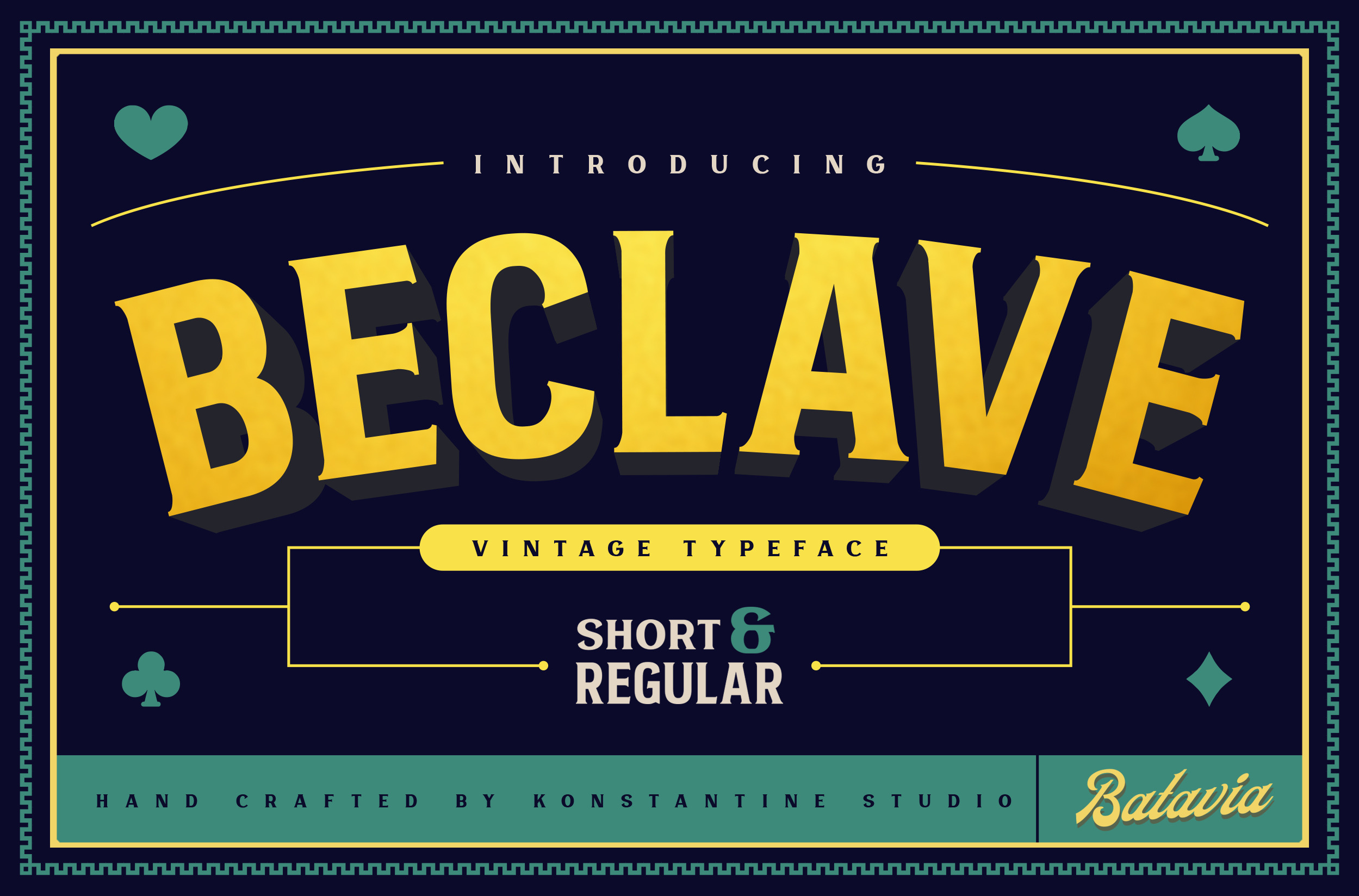
Beclave - Vintage Typeface
Introducing Beclave. A pair of serif bold typeface inspired by the golden era of vintage sign and lettering back in the old days. To give you instant bold and strong statement to your brand, carefully crafted each letters by the passionate hand. tailored at its best for you who really into the vintage culture and stuff, this duo fonts are the perfect choice to go.
I do monumental drafting always on the lookout for fonts that can be carved or sandblast in stone at various sizes, this font meets my needs, plus resemble old-style used on monuments for 100+ years. Well done and see a lot of use.